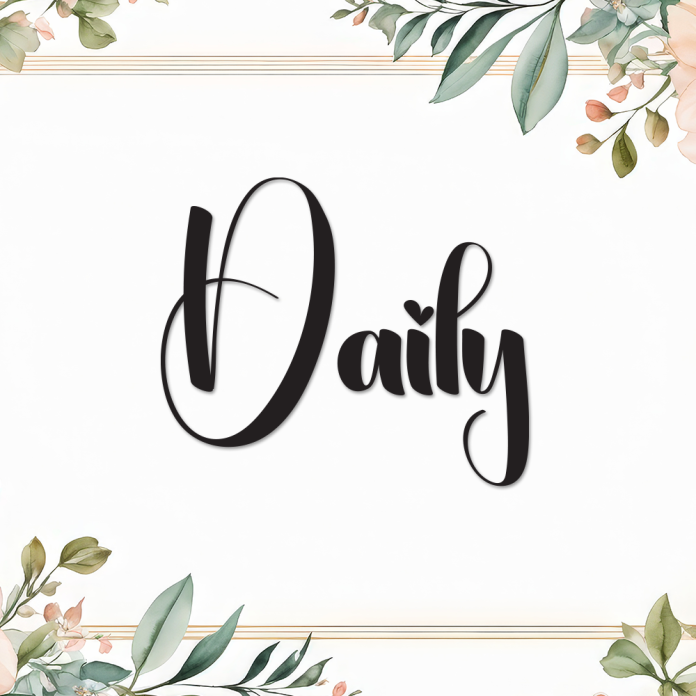
Daily is a neat and effortless handwriting font that mimics the natural strokes of everyday writing. Its clean lines and casual charm make it ideal for personal notes, journaling, planner pages, branding, and minimalist design projects.
Whether you're designing stationery, inspirational quotes, or lifestyle blogs, Daily brings a warm, handwritten authenticity to your work.
Handwriting style with a casual feel
Smooth and readable character set
Uppercase & lowercase letters
Numbers & symbols
Perfect for journaling, quotes, and social media
Supports multiple languages
Bring the essence of your daily handwriting into your designs with Daily – simple, soft, and beautifully relatable.